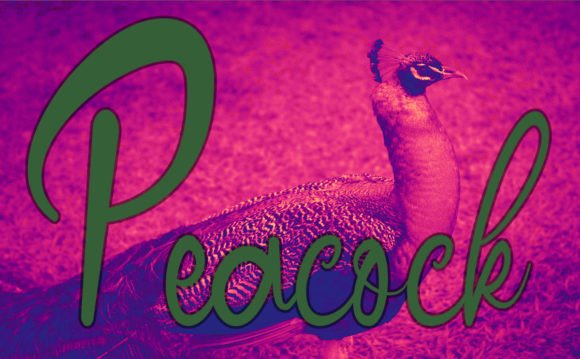
The Ultimate Guide to California Font: A Modern and Playful Script Font
I’ll never forget the time I was working on a branding project for a crafty client, and I just couldn’t find the right font to capture her playful and creative vibe. She wanted something modern, yet approachable, and I was determined to find it. That’s when I stumbled upon California Font, a beautiful handwritten script font that instantly resonated with her brand personality. In this article, I’ll share my experience with California Font, its features, and how to make the most of it in your designs.
An Honest Review of California Font
So, what do I love about California Font? Here are a few things that make it stand out:
• ✨ Playful and modern vibe: California Font has a fresh and youthful feel that’s perfect for creative projects, logos, and branding.
• ✅ Highly versatile: You can use it for a wide range of applications, from invitations and cards to social media graphics and website headers.
• 💫 Easy to read: Despite its playful nature, California Font is surprisingly legible, even at smaller font sizes.
Of course, no font is perfect, and California Font has a few quirks to be aware of:
• 🤔 Limited use of uppercase letters: While the font does have uppercase letters, they’re not as stylized as the lowercase letters, which might limit its use in certain designs.
• ⚠️ Not suitable for body text: Due to its playful nature, California Font is best used for headlines, titles, and short paragraphs, rather than long-form body text.
One of the best things about California Font is its support for OpenType features and glyphs. Here are a few tips for accessing these features:
The Backstory Behind California Font
California Font was designed by a talented type designer who wanted to create a font that captured the laid-back, creative spirit of California. The font’s playful, modern vibe is inspired by the state’s iconic surf culture, beautiful beaches, and thriving arts scene.
Font Name California Font
Author santoso studio
Q: What is California Font?
A: California Font is a modern and playful handwritten script font.
Q: What can I use California Font for?
A: You can use California Font for logos, invitations, cards, branding, and more.
Q: Is California Font easy to read?
A: Yes, California Font is surprisingly legible, even at smaller font sizes.